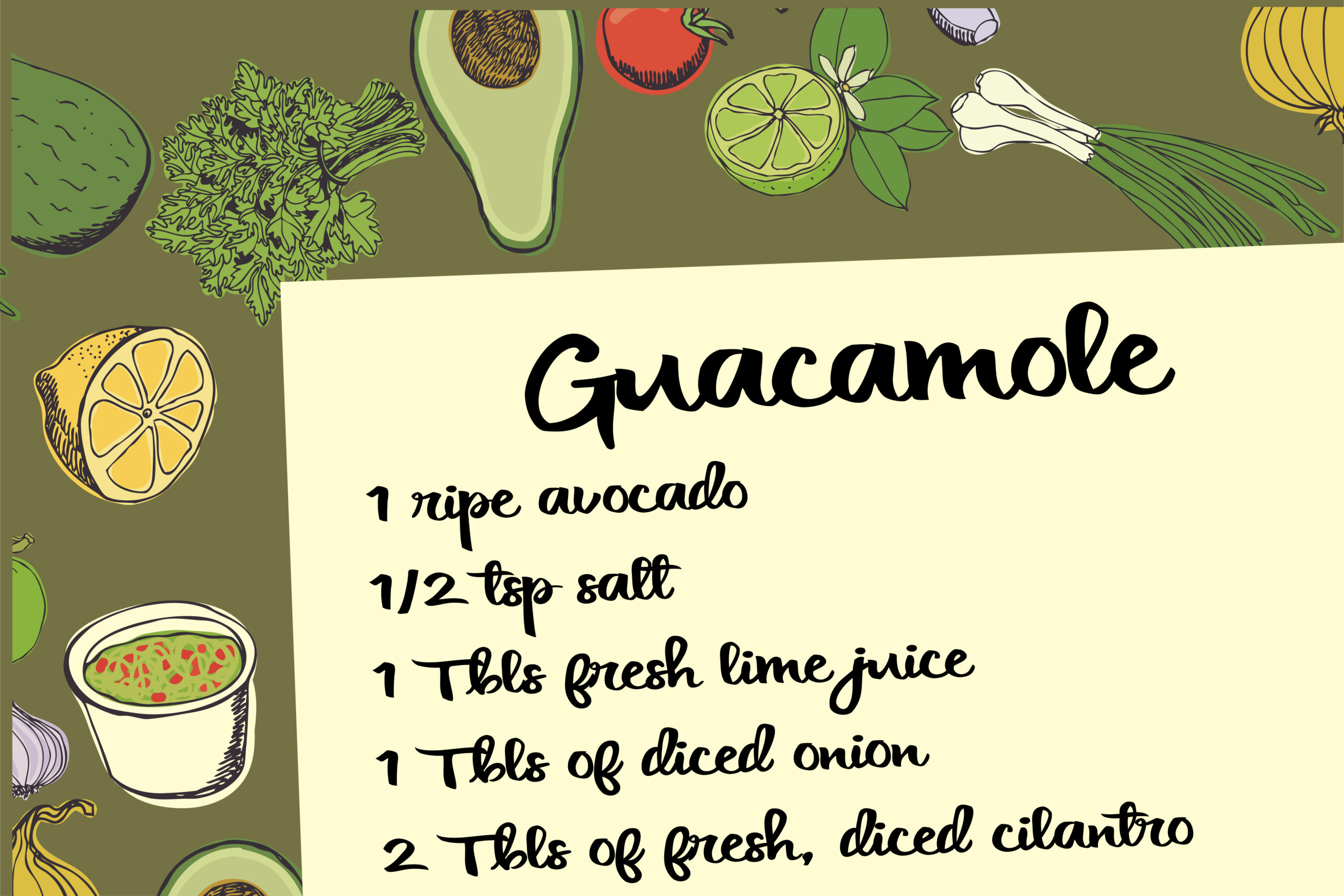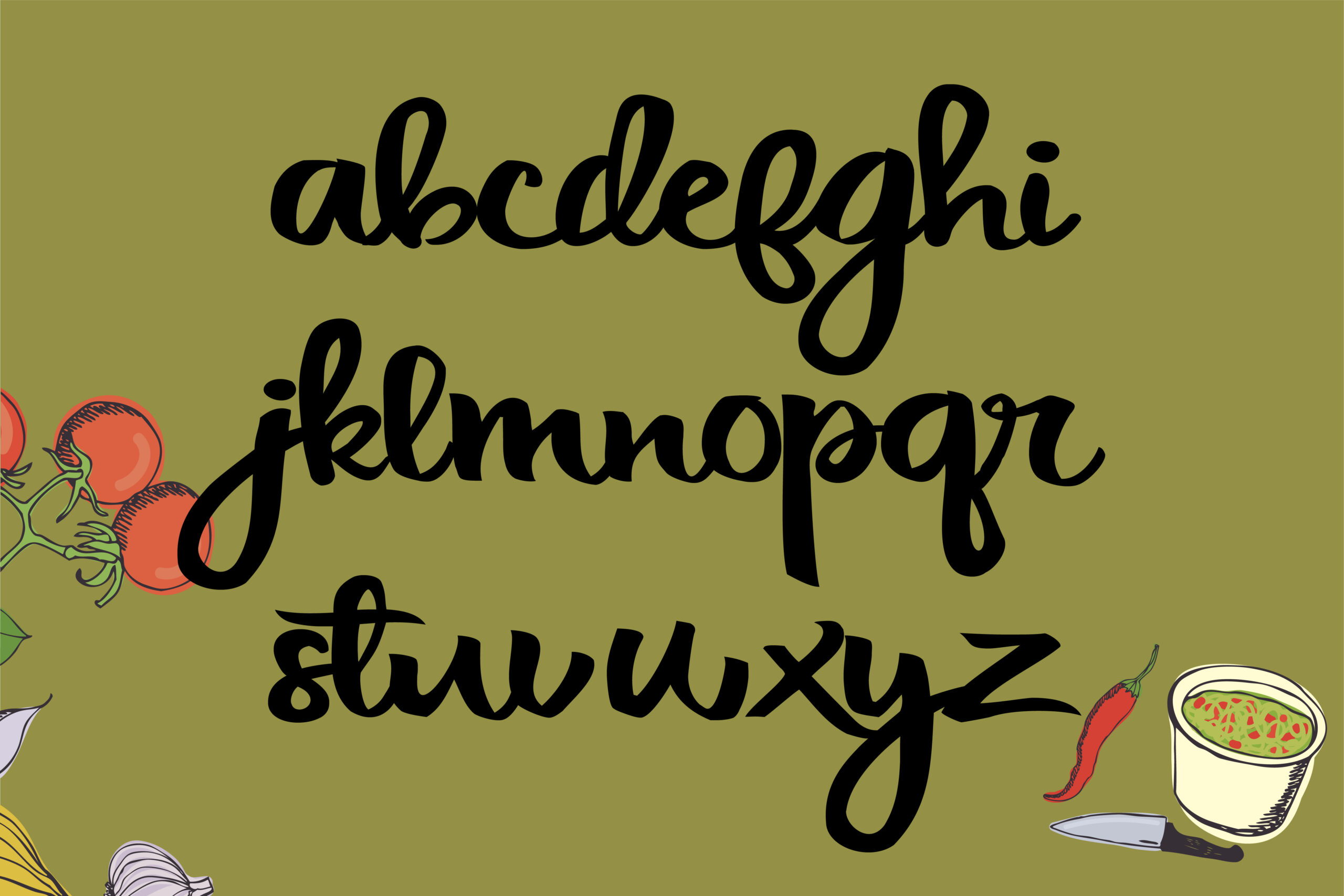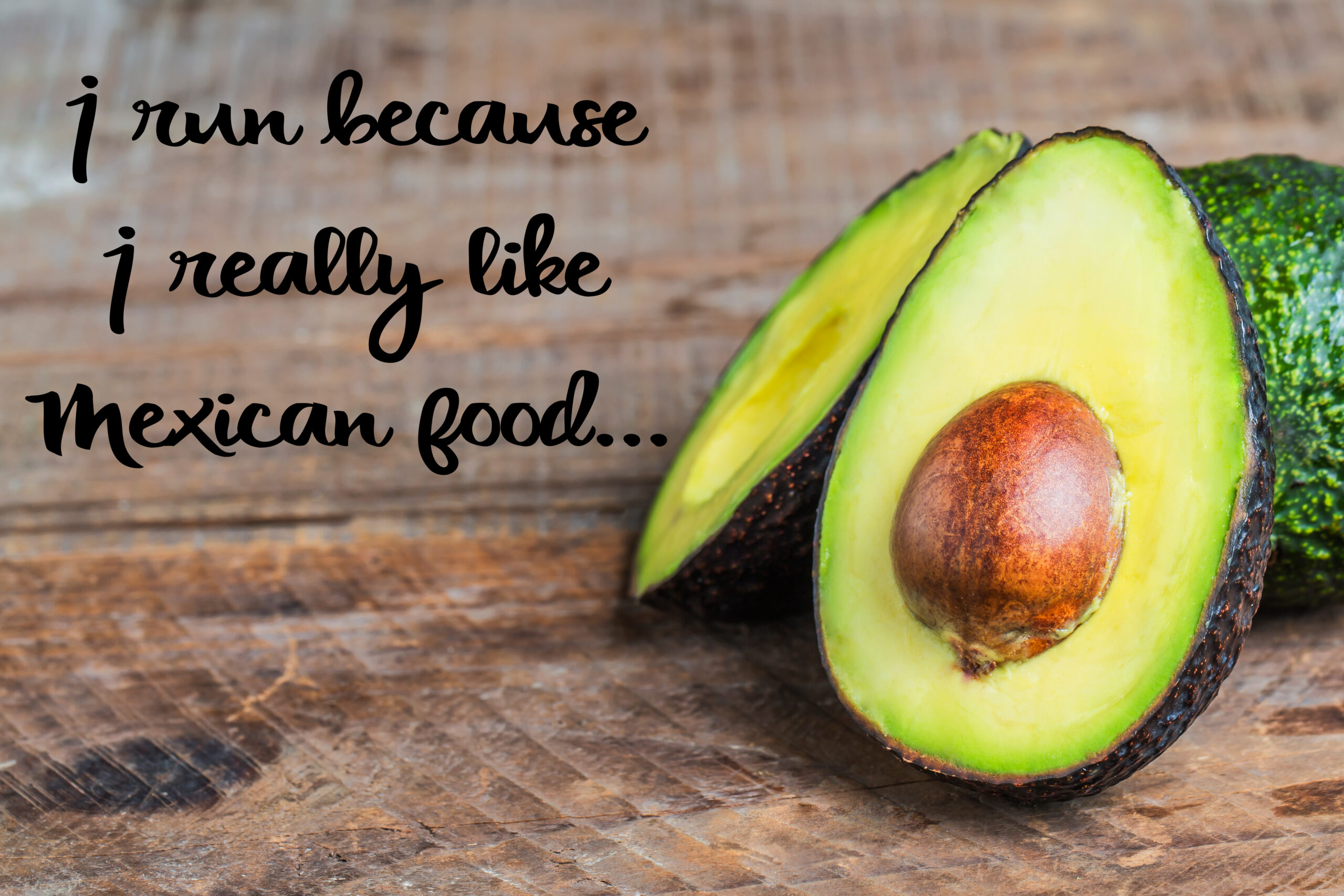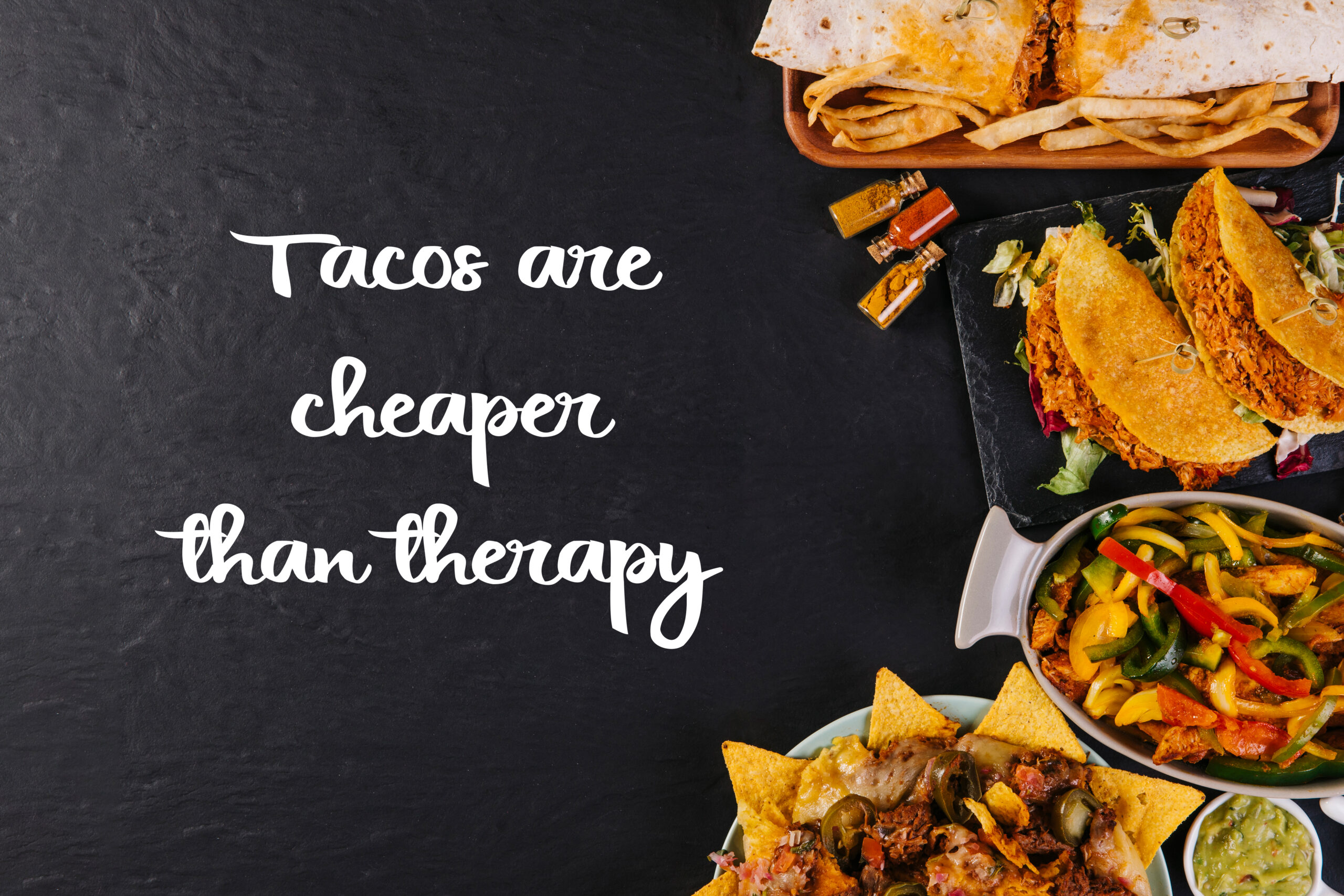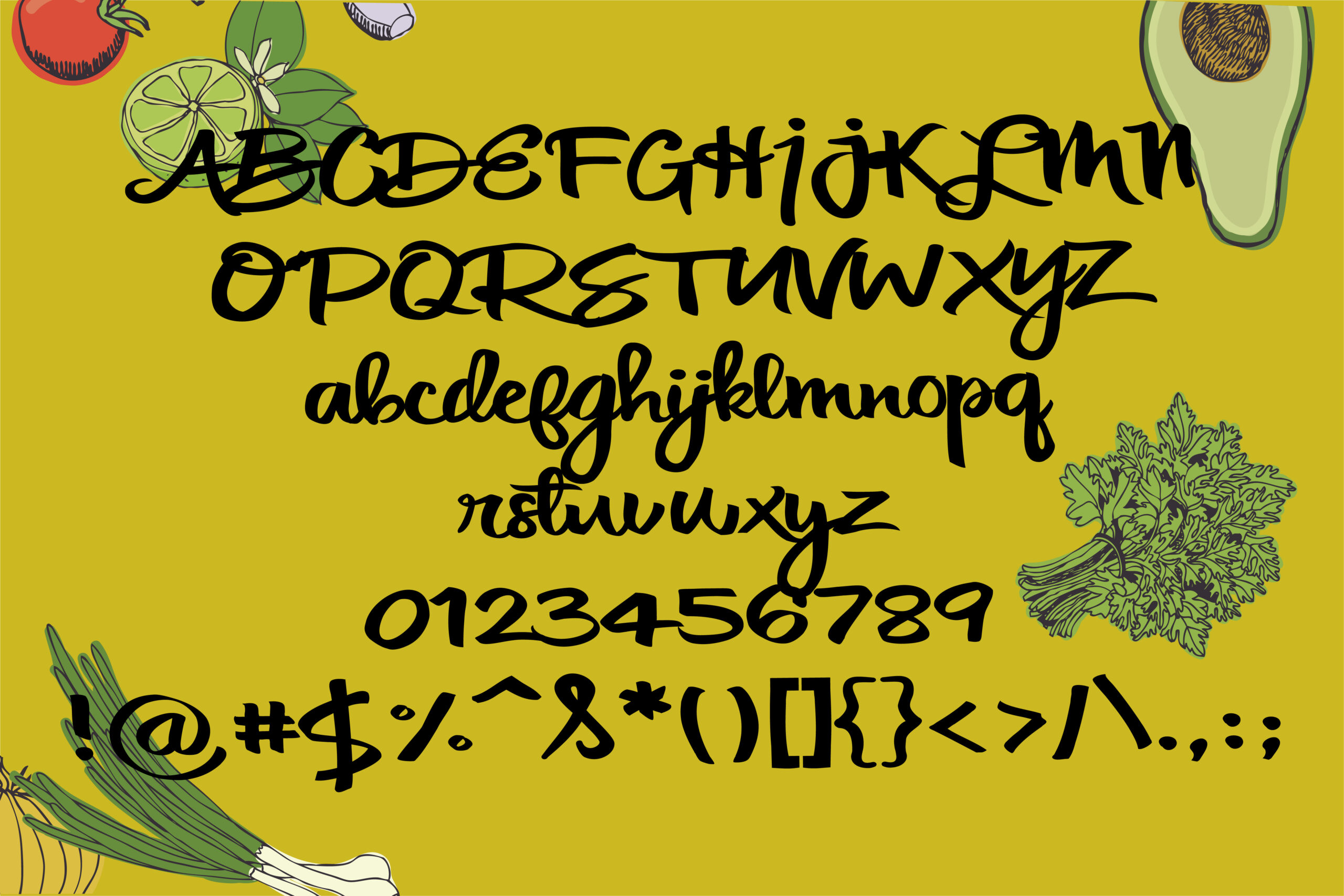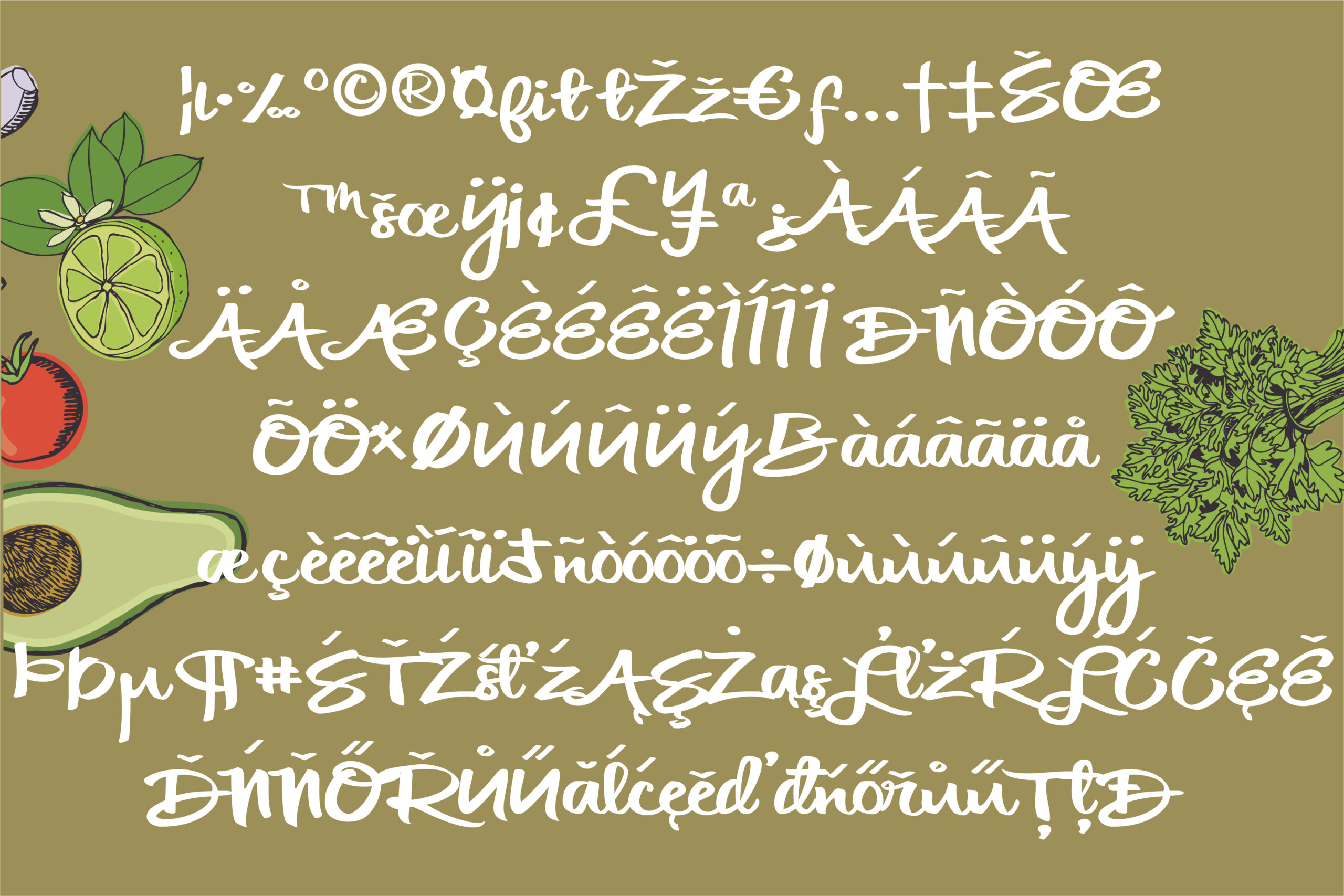
Cilantro Leaf Font
About Cilantro Leaf Font
Cilantro Leaf is a whimiscal and bold script with a quirky personality. This handwritten font can be used for a wide range of designs and can provide a fresh and zesty look to your work!